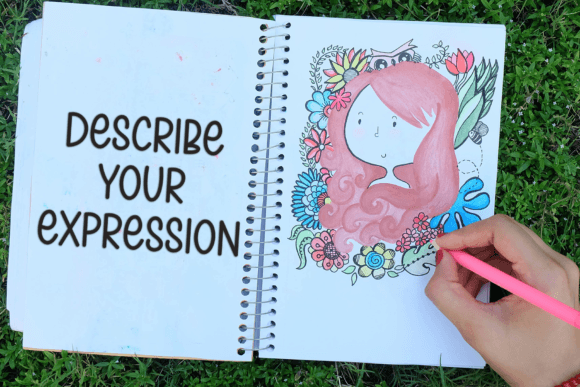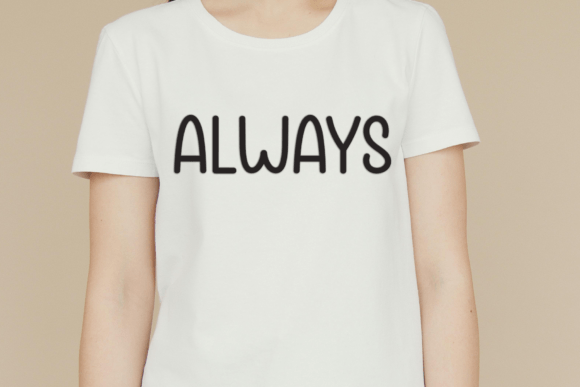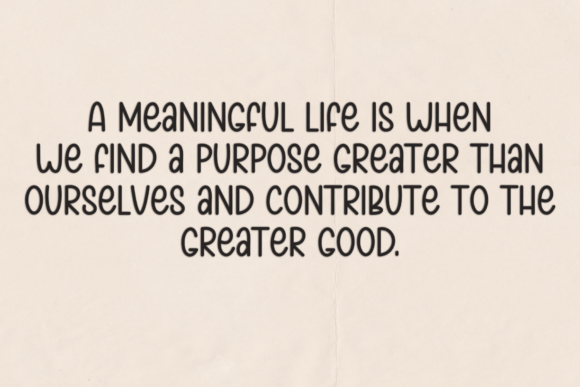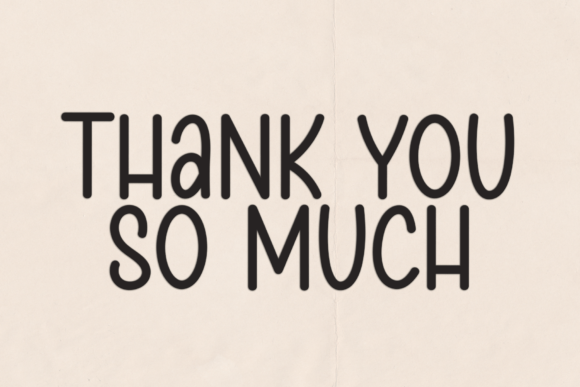
Introduction to Junkie Font
Junkie feels equally charming and elegant.
It looks stunning on wedding invitations, thank you cards, quotes, greeting cards, logos, business cards, and every other design that needs a handwritten touch .
Junkie Font offers exceptional quality and versatility, making it a valuable addition to your design toolkit. Whether you’re creating for personal projects or commercial use, Junkie Font delivers professional results.